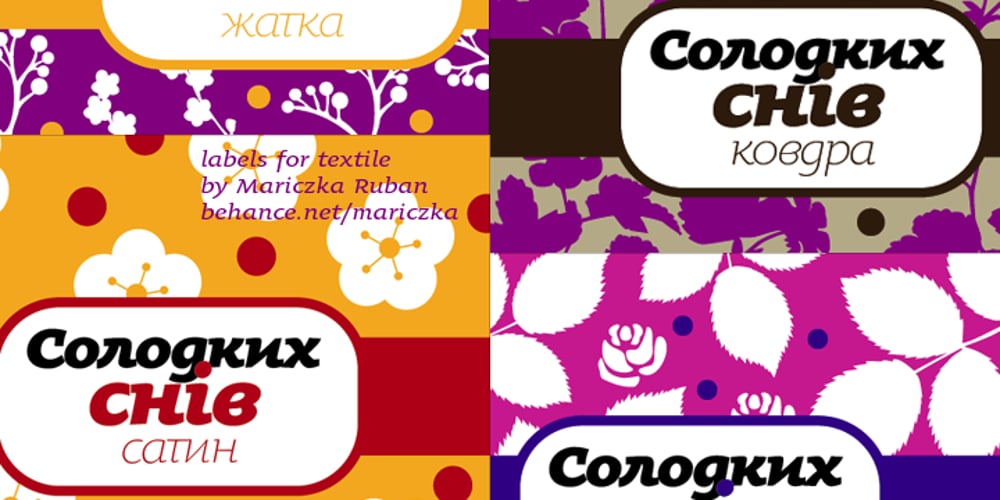
Oksana Text
Oksana Text font
Oksana Text Font Family was designed by Andrij Shevchenko and published by AndrijType. Oksana Text contains 12 styles and family package options. Oksana Text Narrow is Oksana Text, narrower by 25%. Cyrillic and Latin, with real italics and swashed initials in six weights, is always slender.